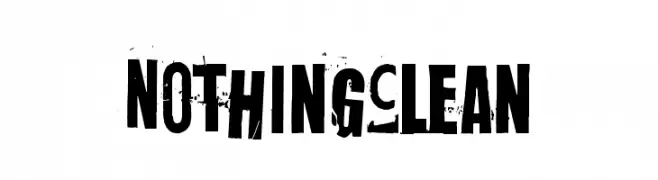
A tall, narrow, brush-like font with a hand-drawn appearance.
A modern, geometric unicase font with clean, rounded characters.
A bold, high-impact font with thick, uniform strokes and strong presence.
A bold, distressed font with a grunge aesthetic and rugged texture.
A bold, flowing script font with interconnected characters and dramatic curves.
A bold, geometric font with thick, uniform strokes and a strong presence.
A modern, geometric font with clean lines and a minimalist aesthetic.
A clean, geometric font with a modern aesthetic.
A modern, light, and condensed sans-serif font with a clean aesthetic.
A modern, geometric sans-serif font with a clean and minimalistic design.